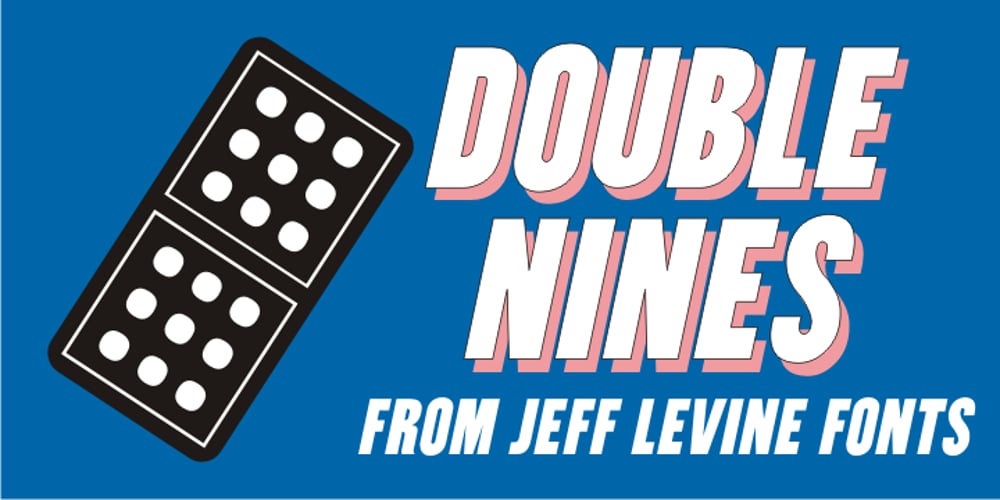
Double Nines JNL Font Family was designed by Jeff Levine and published by Jeff Levine. Double Nines JNL contains 1 styles and family package options. Double Nines JNL is a dingbat font containing fifty-five glyphs for the tiles found in the second level of domino games. Sets of dominoes can be of either double six, double nine or double twelve. In this font, the double blank tile is located on the zero keystroke, while the one/blank and 1/1 tiles are on the 1 and 2 keystrokes. The rest of the tiles (in numerical order through 9/9) are located on the A-Z and a-z keystrokes respectively. To use any or all of the images contained in Double Nines JNL in any manufactured products or services, please refer to the software license agreement provided when purchasing this font. A separate royalty license must be secured from Jeffrey N. Levine for such purposes. The images are NOT licensed for use in proprietary logos or service marks.